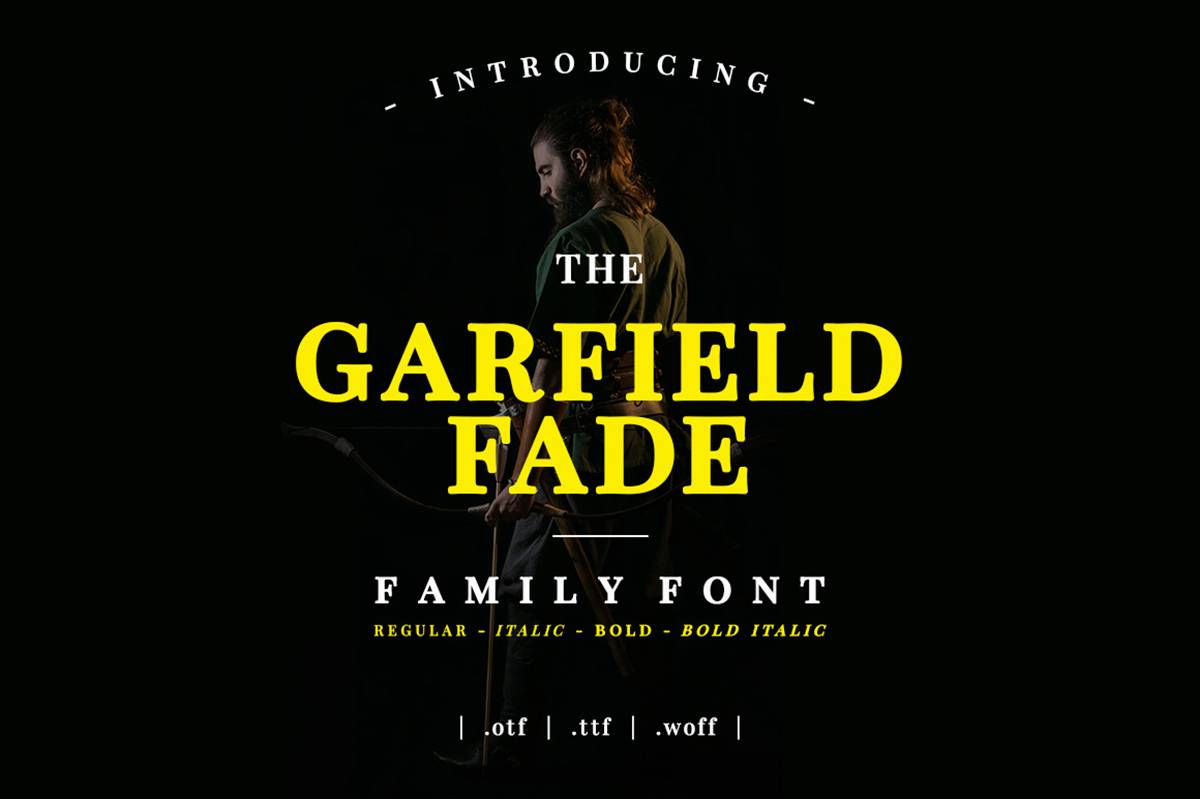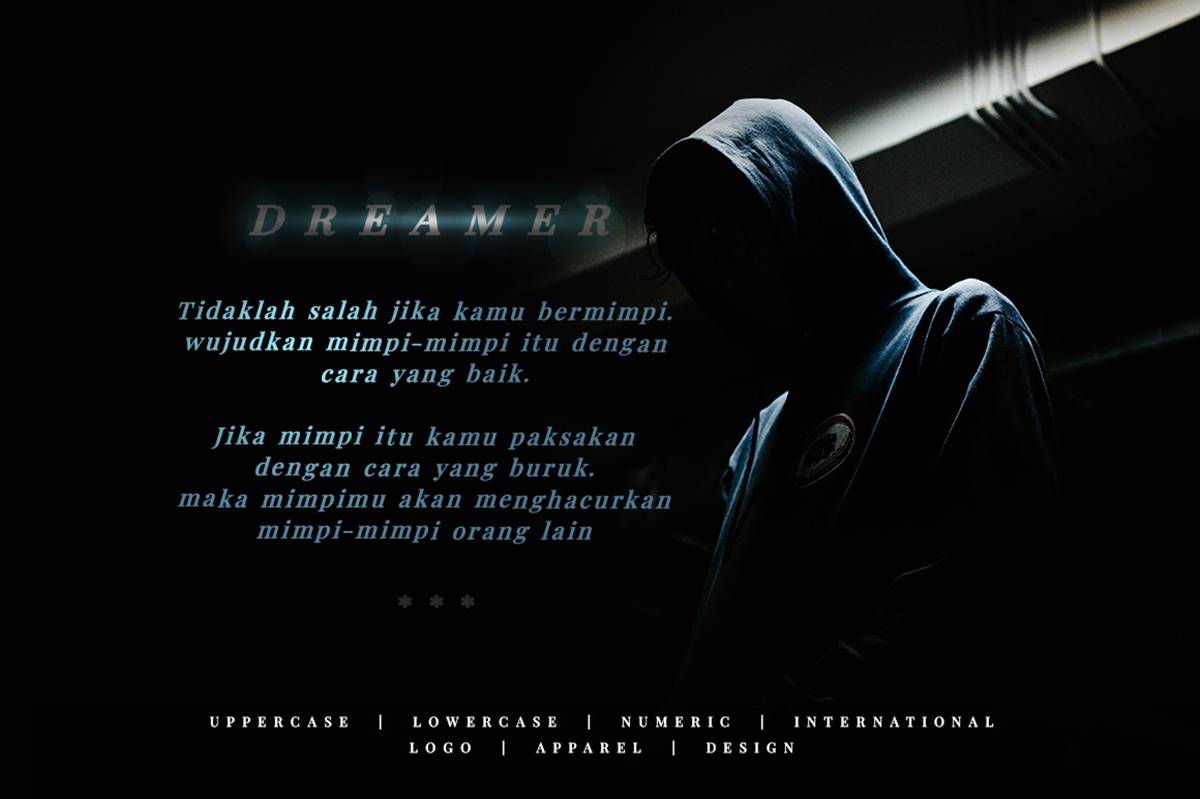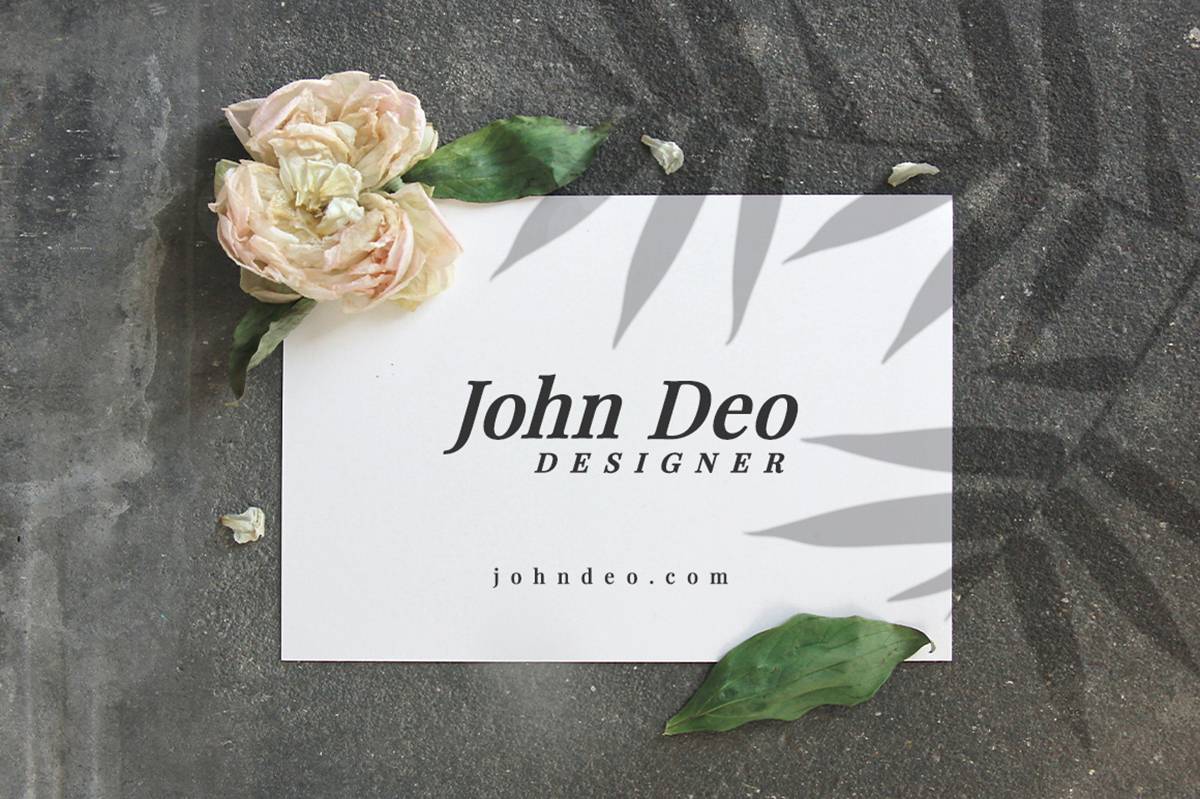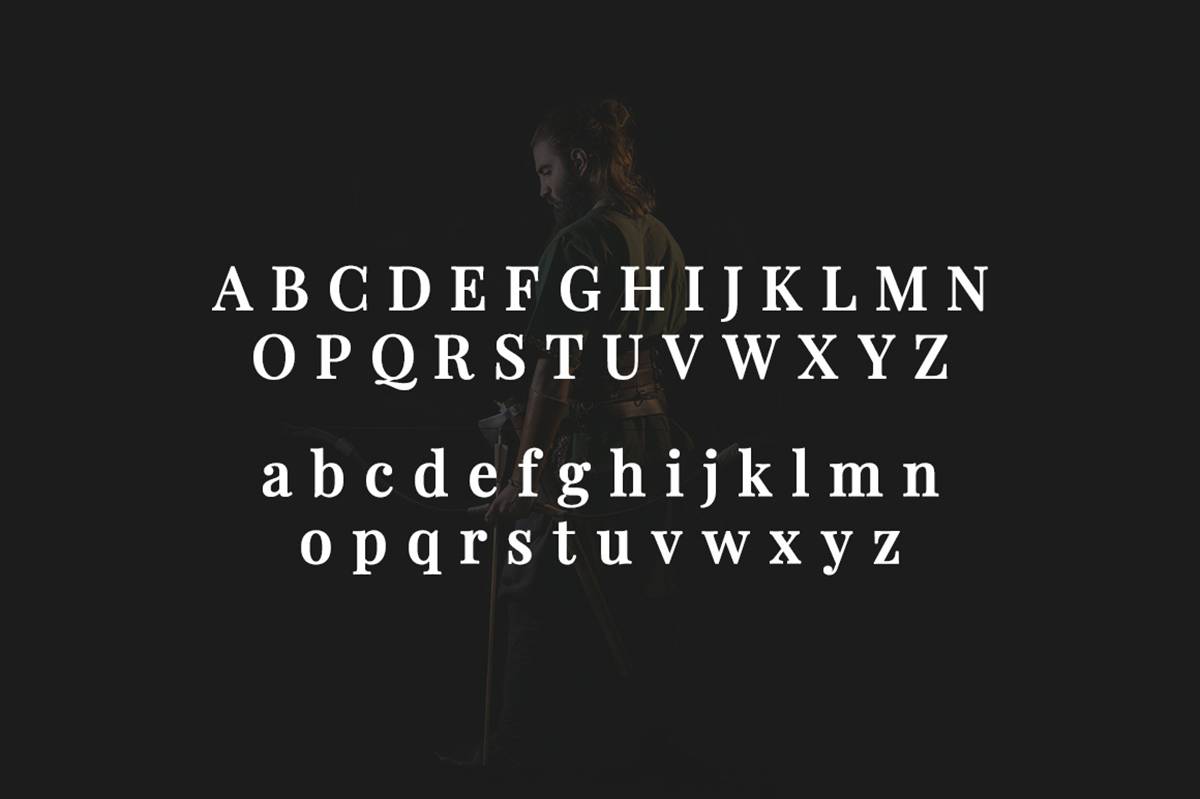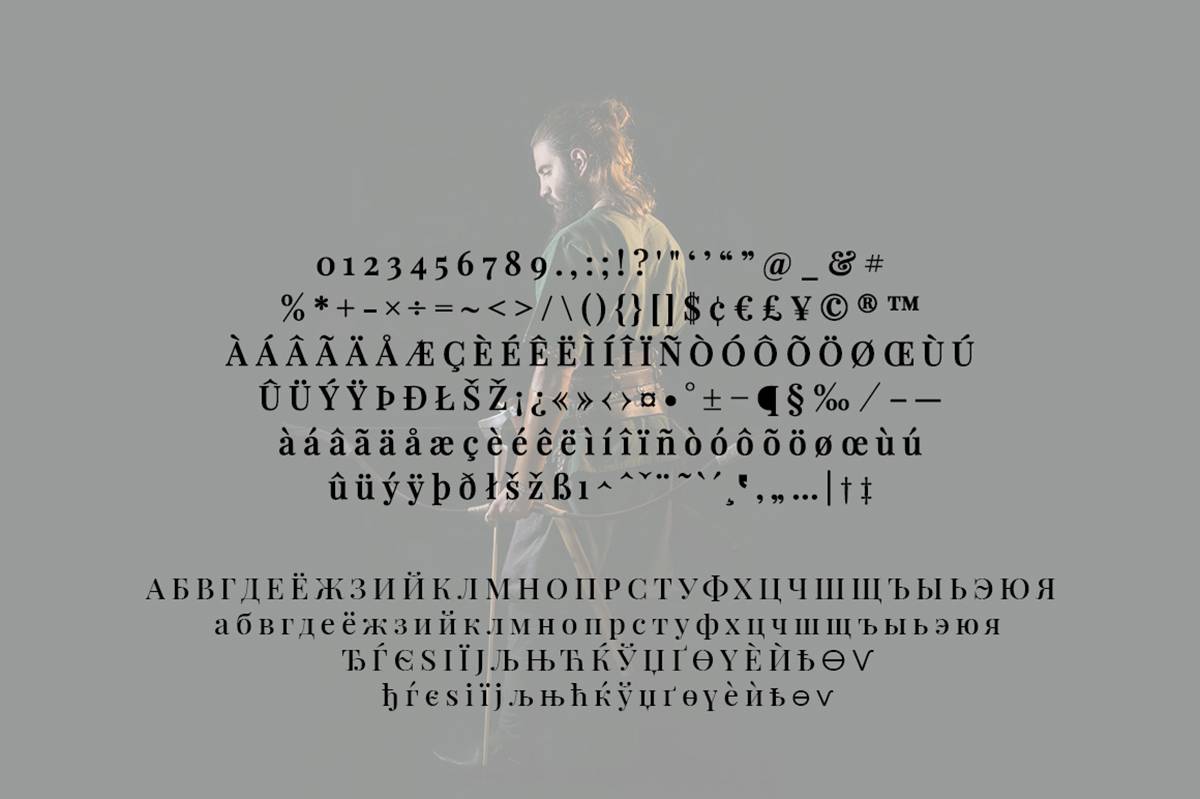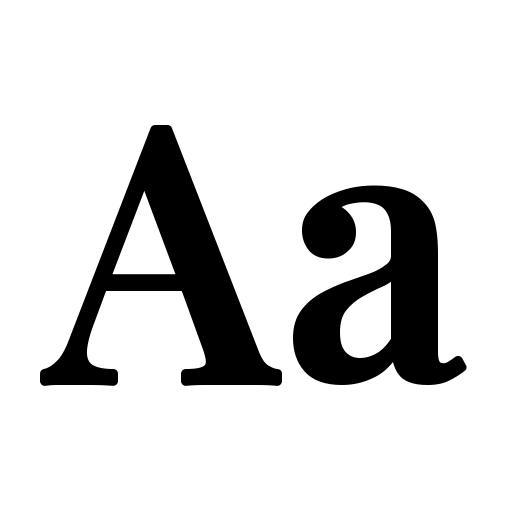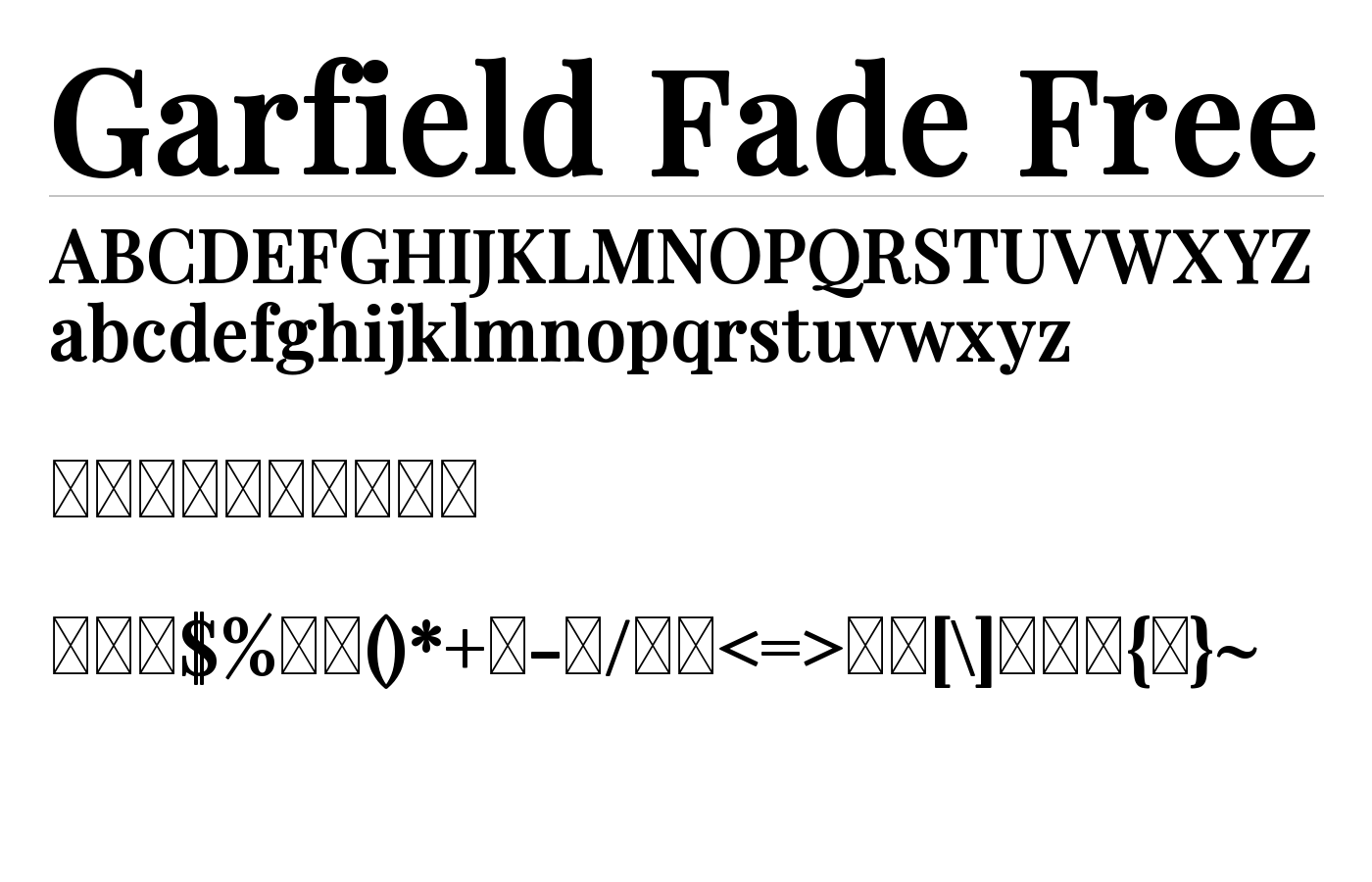
Garfield Fade is a classic serif font with a refined, traditional feel, featuring medium weight and moderate stroke contrast that enhances readability. Its clean, slightly condensed letterforms with bracketed serifs convey a sense of professionalism and timeless elegance, making it ideal for editorial use, formal branding, and print designs. This font works well for headlines and body text alike, providing a versatile option for projects aiming to balance classic style with clear legibility.
Garfield Fade Font
About Garfield Fade Font